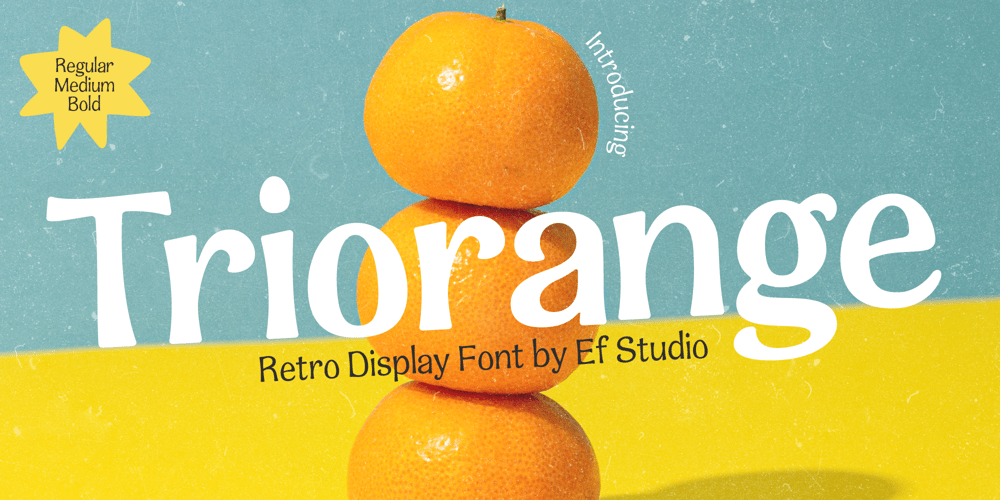
Triorange
Triorange font
Triorange Font Family was designed by Luthfi Fauzi and published by Ef Studio. Triorange contains 3 styles and family package options. Introducing Triorange, a retro display font with rounded and smooth corner. Comes with 3 weight : Regular, Medium, and Bold. Simple letter form make this font looks nice either in body text or headline. Perfect for logo, branding, surface design, editorial design, and so many design needs.